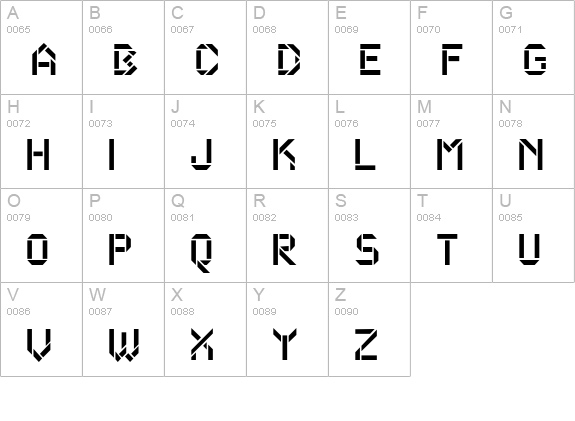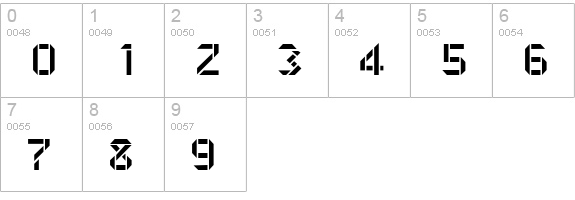
MakestencilAlp Font Details
MakestencilAlp is a versatile and eye-catching font that combines the boldness of a stencil typeface with a touch of elegance. Its unique design makes it perfect for a wide range of creative projects, from logo designs to posters and everything in between. This font features clean lines and sharp edges, giving it a modern and contemporary look. The stenciled letterforms add a sense of structure and precision, making it ideal for projects that require a strong and impactful visual presence. MakestencilAlp is not only visually stunning but also incredibly easy to read. Each letter is carefully crafted to ensure maximum legibility, even at smaller sizes. This makes it a great choice for both print and digital applications. One of the best things about MakestencilAlp is that it is available for free. Yes, you read that right - this impressive font can be downloaded and used without any cost. Simply head over to FontsMarket.com and get your hands on this fantastic typeface. Whether you're a professional designer or a hobbyist, MakestencilAlp is a must-have font in your collection. Its versatility, aesthetic appeal, and free availability make it a go-to choice for all your design needs. So why wait? Download MakestencilAlp today and let your creativity soar to new heights.